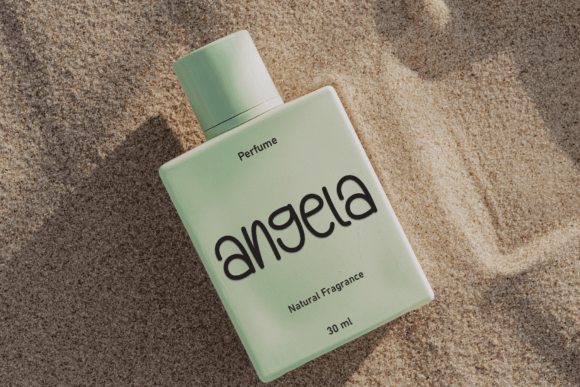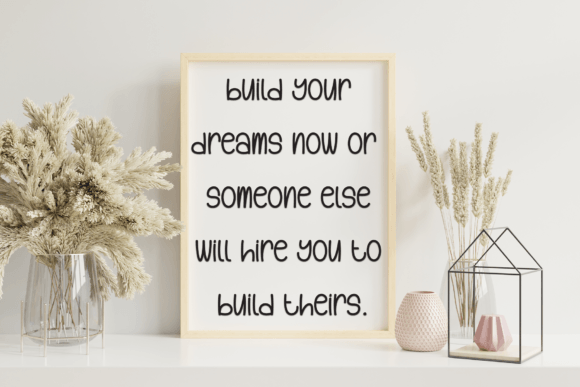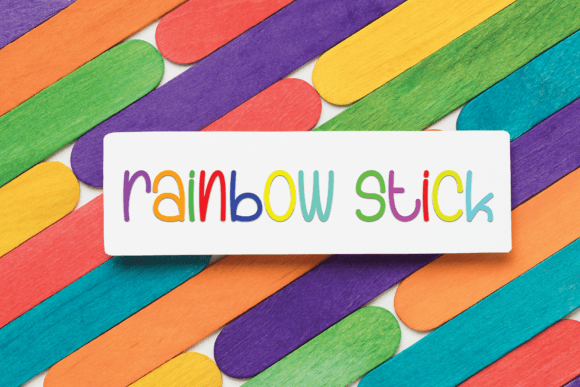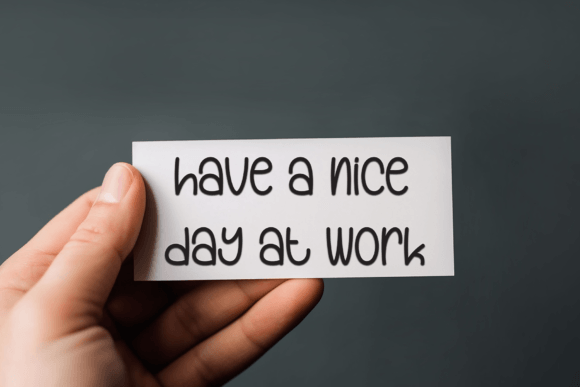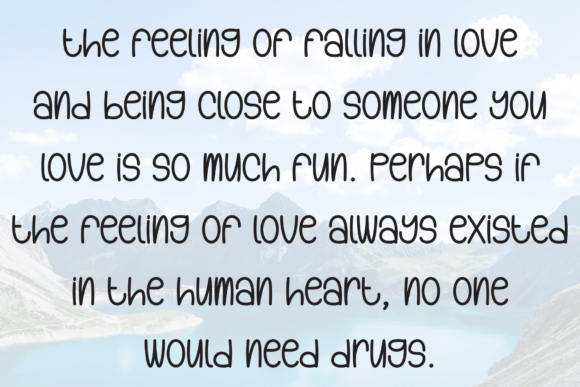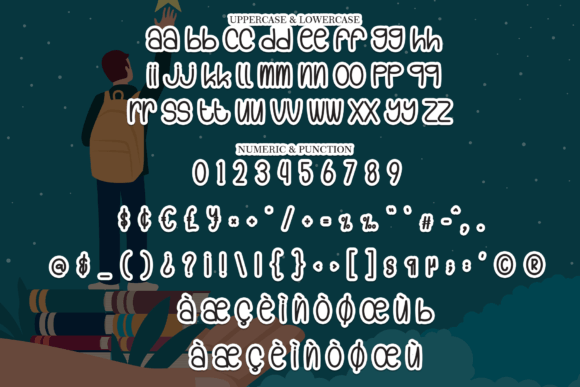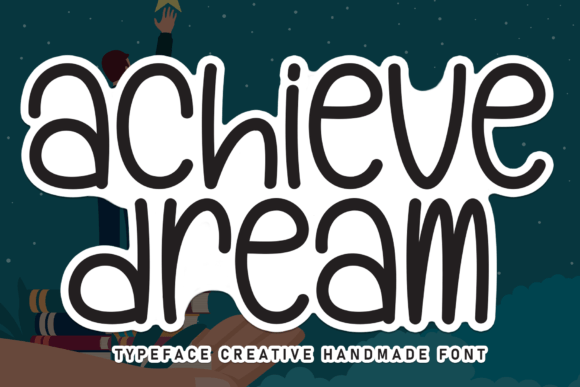
The Dreamy Font That Brings Joy to Your Designs: Achieve Dreams
Have you ever been in the middle of a design project, and suddenly, you just can’t seem to find the right font? I recall a particularly frustrating moment when I was working on a wedding invitation design. My client wanted something sweet, friendly, and utterly charming. I scoured the internet, tried out dozens of fonts, but nothing seemed quite right. That was until I stumbled upon Achieve Dreams, a beautiful handwritten font that instantly brought my design to life.
Achieve Dreams: The Perfect Font for Your Fun and Creative Projects
Achieve Dreams is a sweet and friendly handwritten font that’s perfect for adding a touch of whimsy to your designs. **This font is ideal for writing wedding invitations, cards, or any other design that might need a fun touch!** 🎉 Its cute and fun personality makes it an excellent choice for designers, crafters, and creative hobbyists looking to add a personal touch to their work.
An Honest Review of Achieve Dreams
What I Love About Achieve Dreams ✨
- 💕 The font’s friendly and approachable vibe makes it perfect for designs that require a personal touch.
- ✅ The handwritten style is smooth and flowing, making it easy to read and beautiful to look at.
- 🎉 Achieve Dreams comes with a range of OpenType features, glyphs, and stylistic alternates, giving you plenty of creative options.
- ⚠️ As with many handwritten fonts, some letters may not perfectly match in terms of spacing or size. This can be easily adjusted in most design software.
- ⚠️ The font might not be the best choice for very formal or corporate designs, as it’s inherently playful and casual.
Exploring OpenType Features, Glyphs, and Stylistic Alternates
Achieve Dreams supports various OpenType features that can elevate your designs:
- Ligatures: Combine letters for a more artistic look.
- Stylistic Sets: Switch between different stylistic variations of the font.
- Glyphs: Access additional characters, such as decorative borders or icons.
The Backstory Behind Achieve Dreams
Achieve Dreams was created with the intention of bringing a sense of joy and accomplishment to designs. Its designer aimed to craft a font that feels both personal and uplifting, perfect for projects that celebrate milestones or special moments. While the exact details about the designer might be scarce, the font’s charm and character certainly make it a standout in the world of typography.
Q: What type of projects is Achieve Dreams best suited for?
A: Achieve Dreams is perfect for projects that require a friendly, approachable touch, such as wedding invitations, greeting cards, and other personal or celebratory designs.
Q: Does Achieve Dreams support OpenType features?
A: Yes, Achieve Dreams supports various OpenType features, including ligatures, stylistic sets, and glyphs, which can enhance your designs and provide more creative flexibility.
Q: Is Achieve Dreams easy to read?
A: Absolutely! Achieve Dreams is designed to be both beautiful and legible, making it suitable for body text as well as headings and titles.